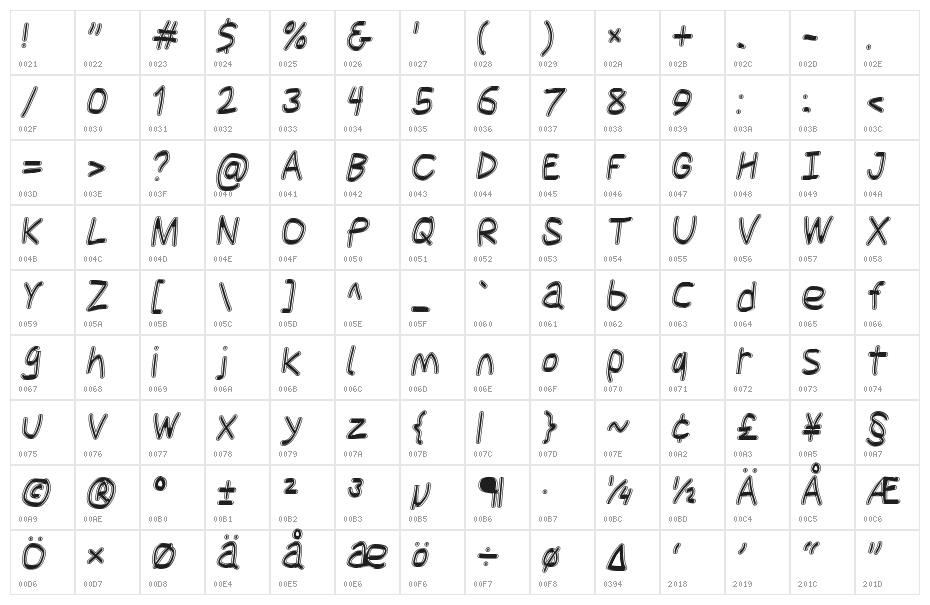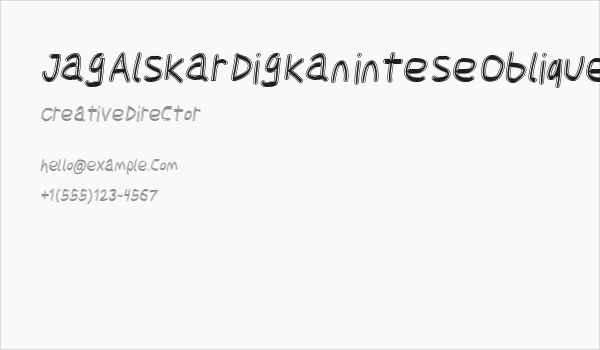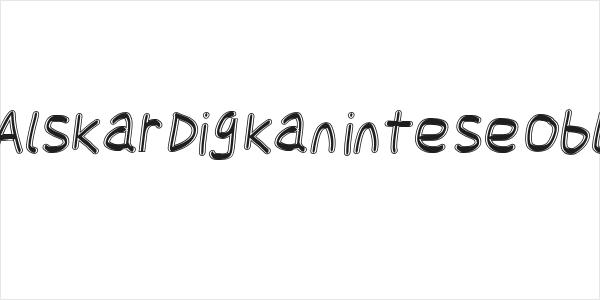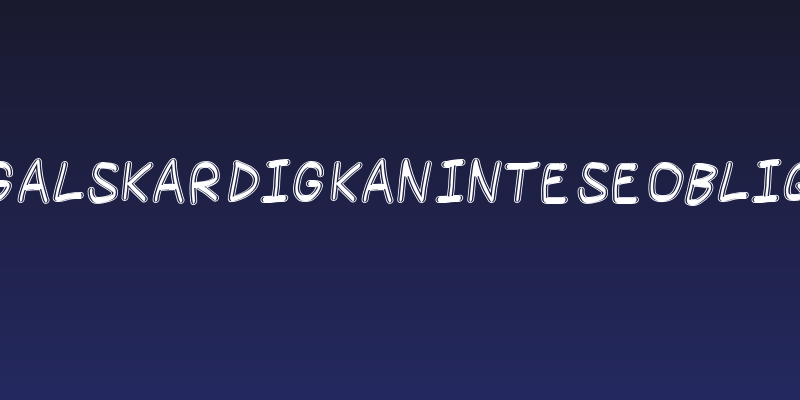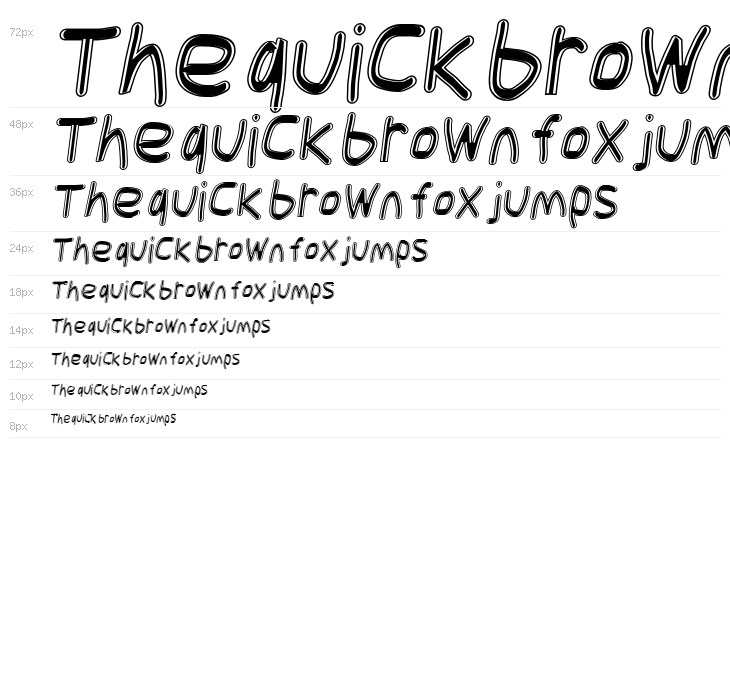
Jag Alskar Dig kan inte se Oblique Font
Jag Alskar Dig kan inte se Oblique Description
This playful and dynamic font features a hand-drawn style with a bold outline that gives it a cartoonish and lively appearance. The characters are slightly irregular, adding to the whimsical and informal feel. The uppercase and lowercase letters maintain a consistent style, with rounded edges and a slight slant that suggests movement. The numerals and special characters follow the same design principles, ensuring a cohesive look across all elements. This font's unique personality makes it stand out, making it ideal for projects that require a fun and approachable aesthetic.
| Proposed Projects | Ideal for children's books, comic strips, playful branding, and informal invitations. |